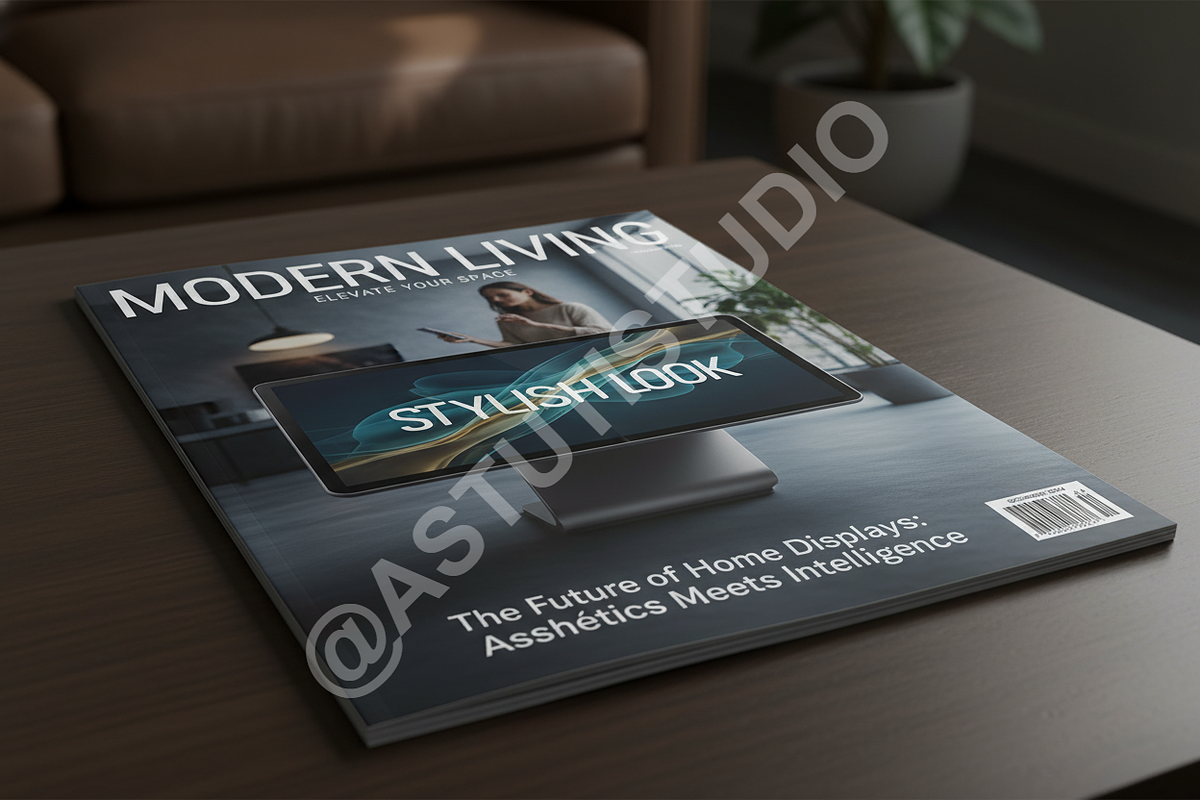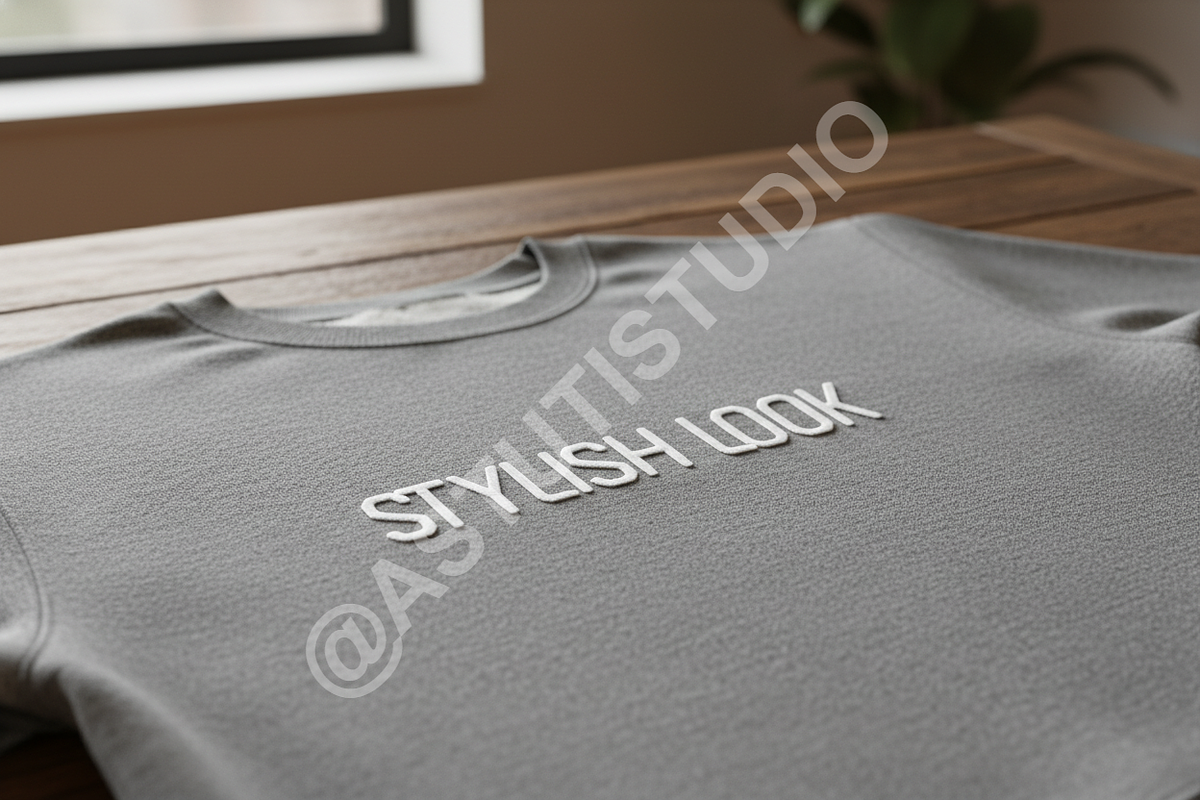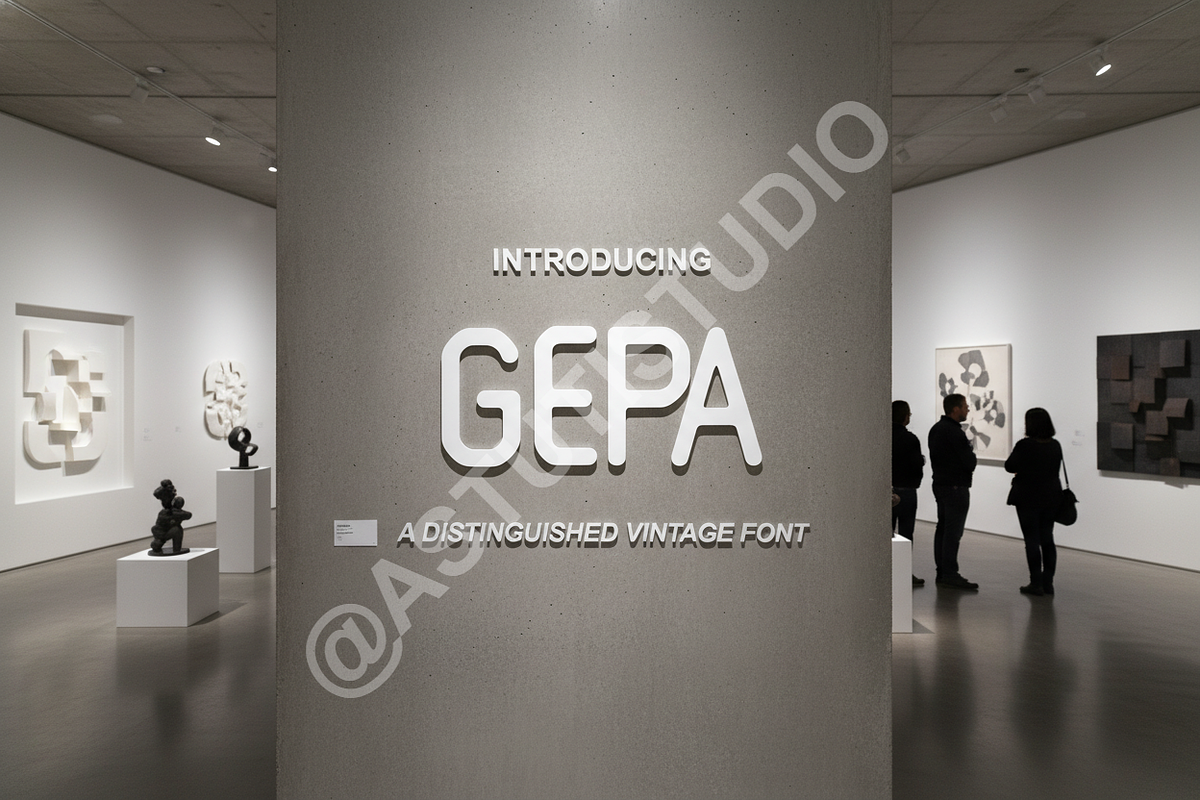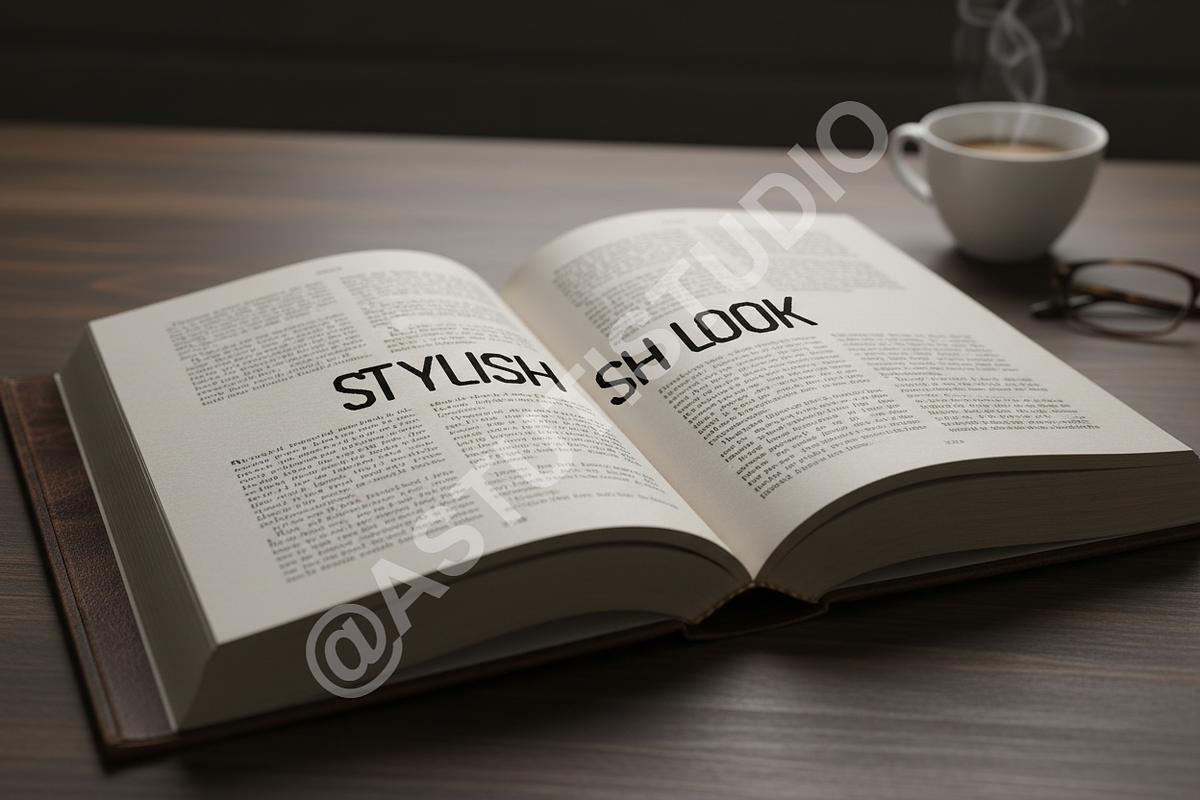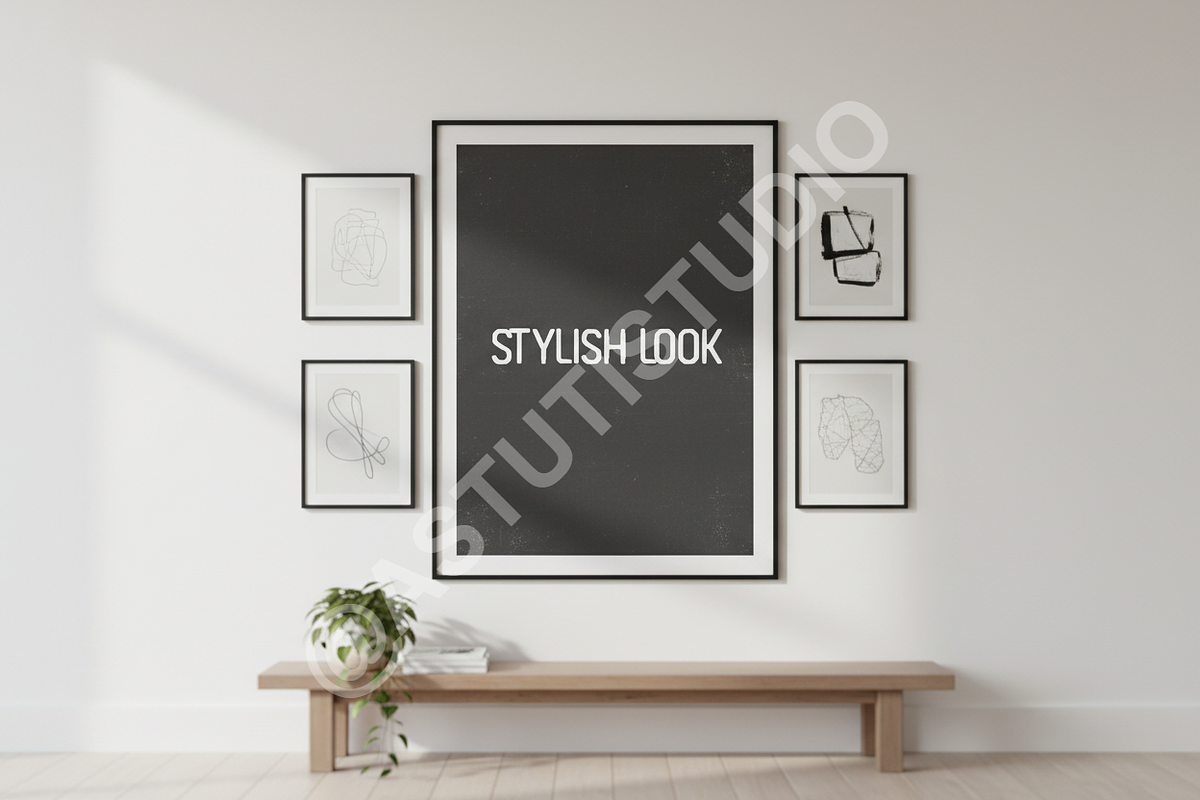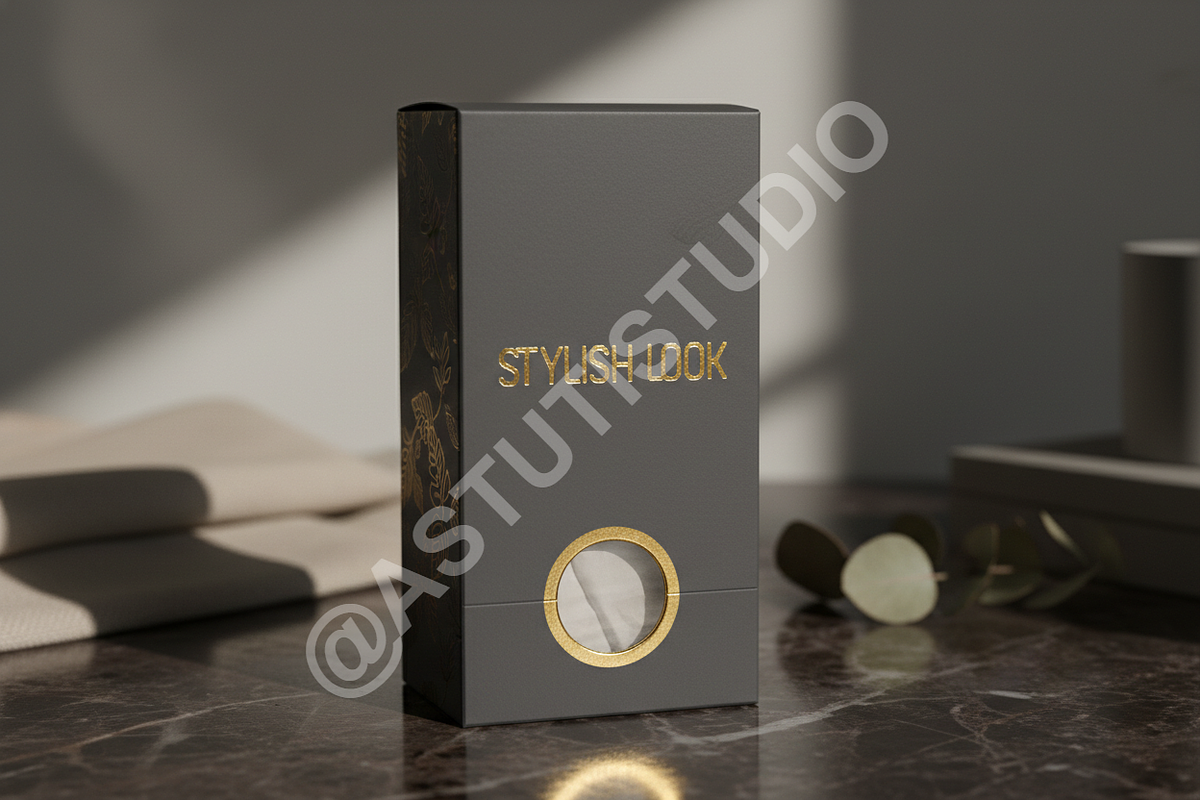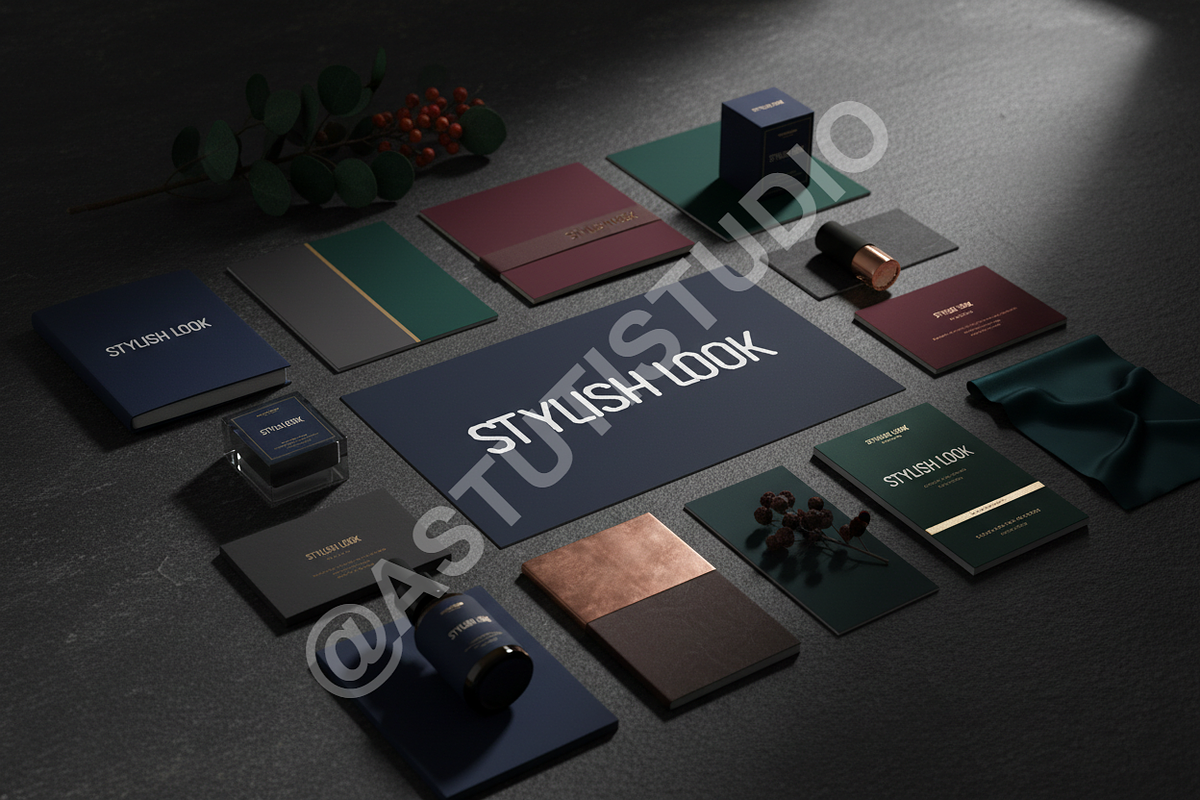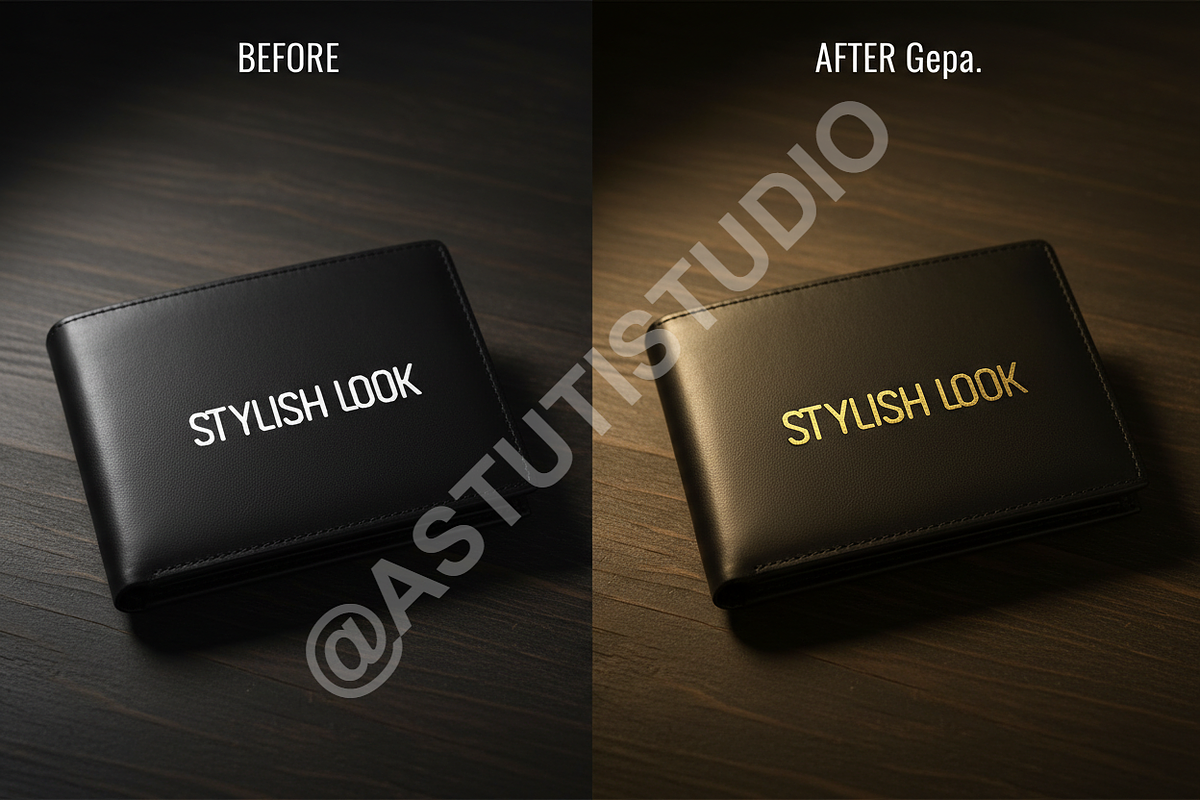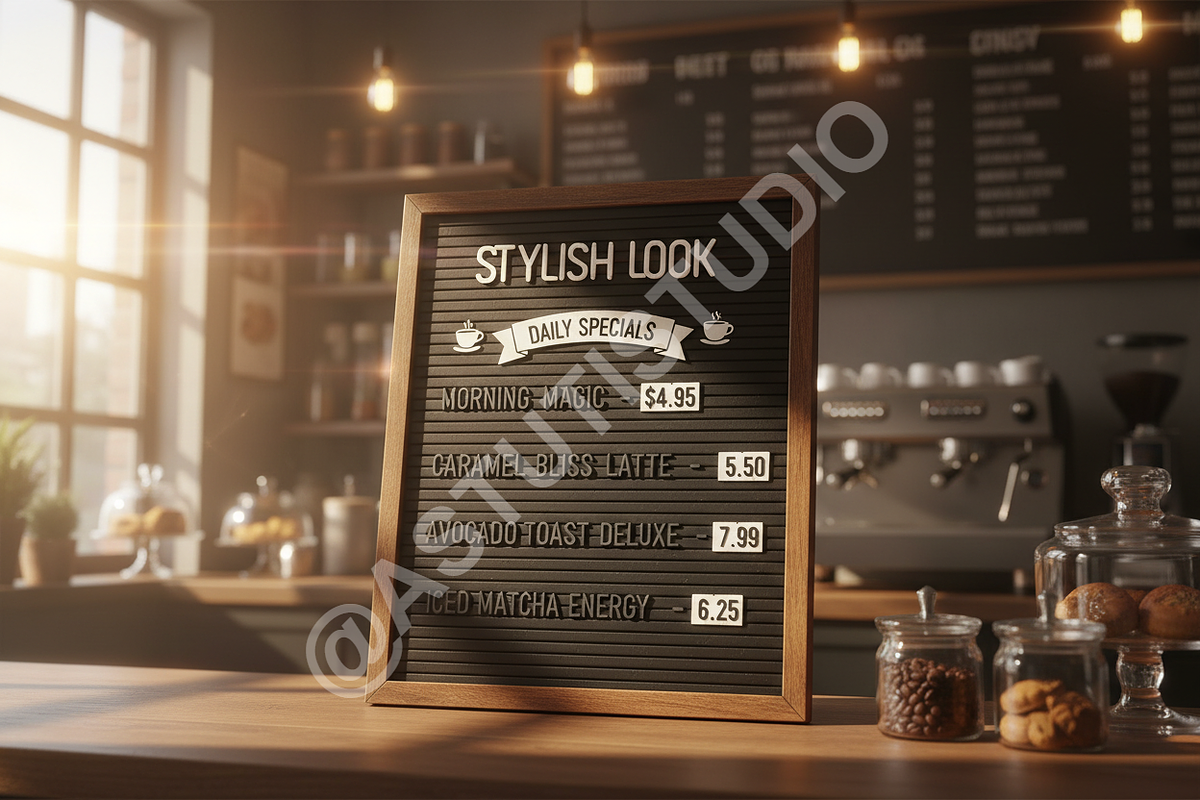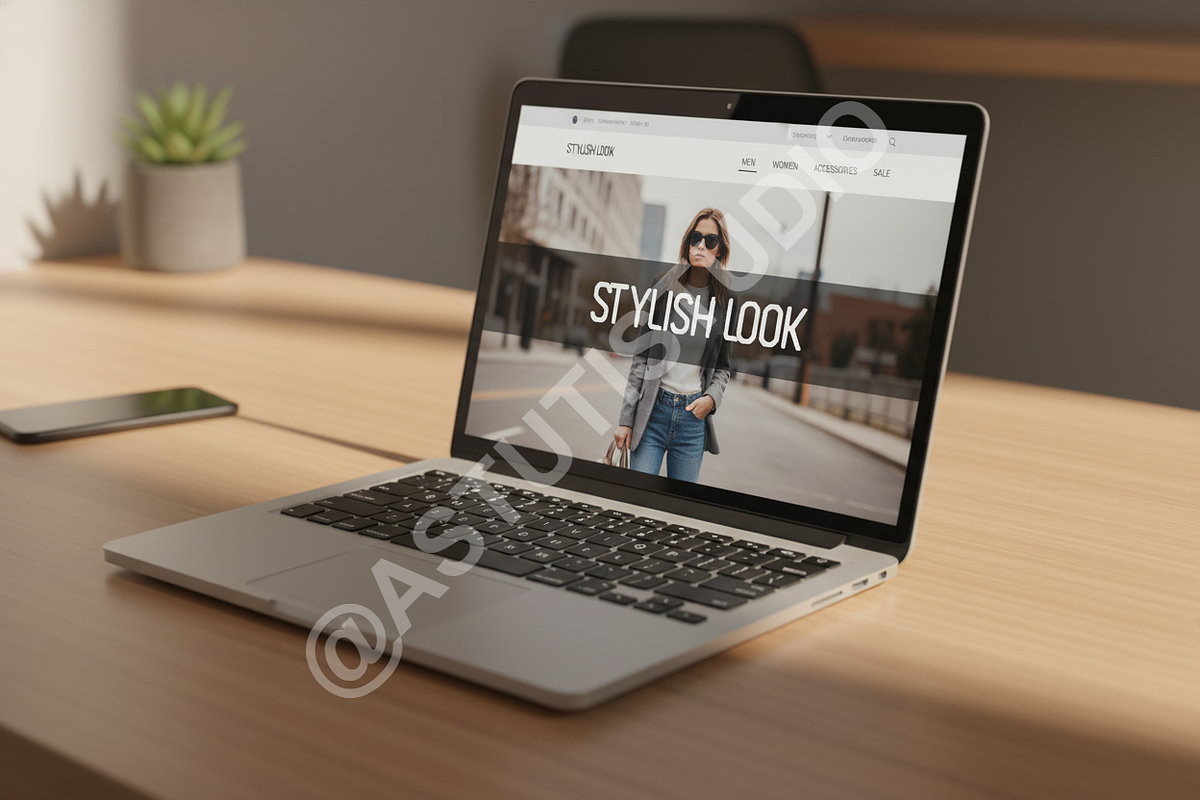
Gepa - Premium Contemporary Display
Introduction
Gepa is a sophisticated contemporary serif designed for impact and elegance. Its meticulously balanced forms, subtle contrast, and sharp terminals provide a distinctly premium feel, positioning Gepa as the perfect choice for projects demanding refinement and high visual quality. This typeface transcends passing trends, offering a timeless appeal suitable for global luxury markets, editorial spreads, and powerful digital campaigns.
Key Features of Gepa
- Luxury & High-End Branding: Ideal for prestigious logotypes, fashion campaign headlines, and product packaging design.
- Editorial Excellence: Optimized for display use in magazines, book covers, and high-level corporate reports, ensuring maximum readability and visual weight.
- Social Media Impact: Creates strong, memorable visual headers and concise marketing graphics for platforms like Instagram and Pinterest.
- Extensive Multilingual Support: Gepa supports a comprehensive range of characters covering Western, Central, and Eastern European languages.
- Advanced OpenType Features: Includes standard ligatures, discretionary ligatures, and contextual alternates for seamless and professional typographic flow.